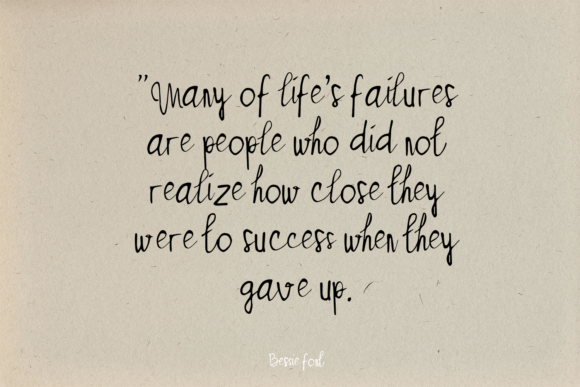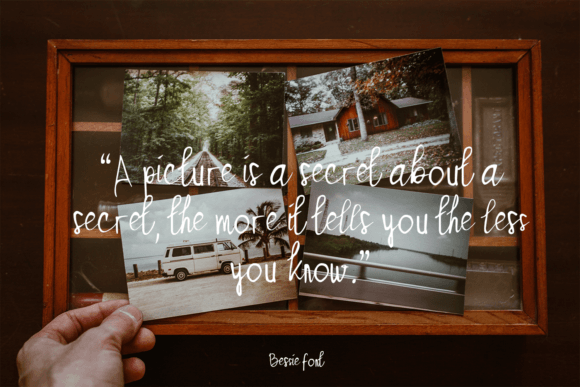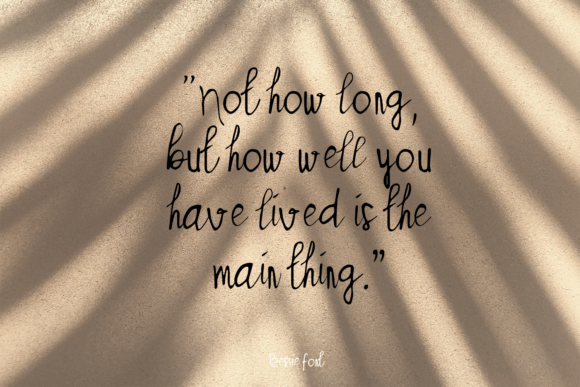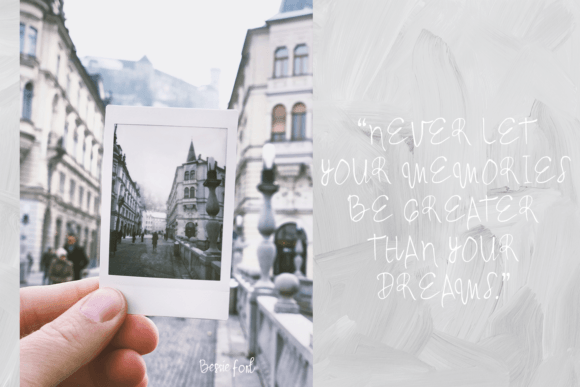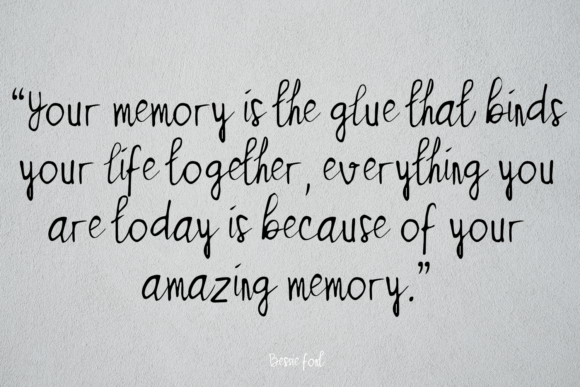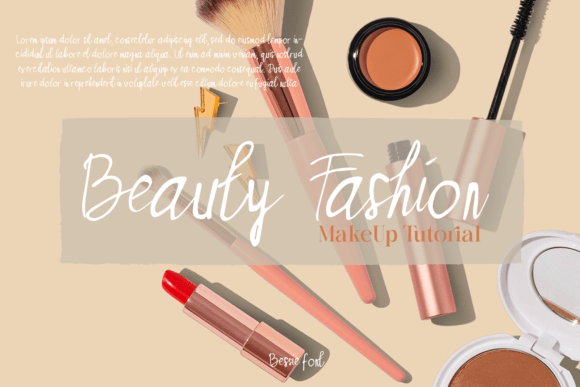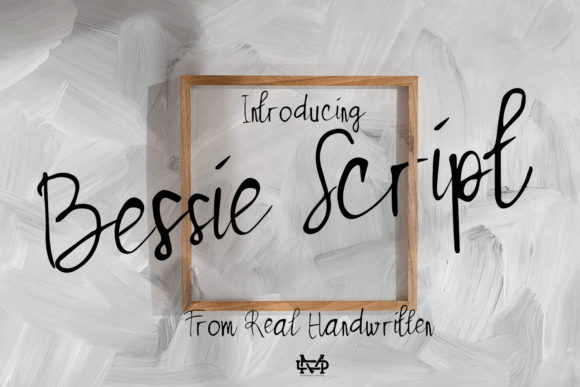
Bessie Script Font: Elevate Your Designs with a Quirkily Exquisite Touch
In the vast universe of typography, fonts play a pivotal role in bringing creativity and personality to designs. Among the myriad of fonts available, the Bessie Script Font stands out for its unique blend of quirkiness and elegance. This handwritten font is not just a typeface; it’s an expression of creativity, designed to add a distinctive touch to any project. Whether you’re a designer looking for a font that breaks the mold or a crafter seeking a unique style for your brand, Bessie Script is an ideal choice.
The Essence of Bessie Script Font
Bessie Script is a handwritten font that embodies both quirkiness and exquisite beauty, making it perfect for designs that require a personal touch. Its playful letterforms, characterized by unusual angles and curves, create a distinctive and memorable effect. This font is not just about conveying a message; it’s about making a statement. The unusual typographic elements ensure that your designs stand out in a crowded digital landscape.
Applications of Bessie Script Font
The versatility of Bessie Script Font makes it suitable for a wide range of applications. Here are a few areas where this font truly shines:
- Logos: A logo is often the first impression of a brand. With Bessie Script, you can create a logo that is not only memorable but also reflects the playful and creative side of your brand.
- Packaging: In the competitive world of product packaging, standing out is crucial. Bessie Script can add a touch of uniqueness to your packaging designs, making your products more noticeable to consumers.
- Advertising: Advertising is all about capturing attention. The quirkiness of Bessie Script Font can make your ad copies more engaging and appealing to your target audience.
Why Choose Bessie Script Font?
There are several reasons why designers and crafters are gravitating towards Bessie Script Font:
- Uniqueness: In a sea of generic fonts, Bessie Script offers a breath of fresh air with its unique and quirky style.
- Versatility: This font can be used across various platforms and design projects, from digital websites to print materials.
- Creativity: Bessie Script encourages creativity and can be a valuable asset for designers looking to push the boundaries of conventional design.
- Legibility: Despite its quirky nature, Bessie Script maintains a high level of legibility, making it suitable for both headings and body text.
Tips for Using Bessie Script Font Effectively
To get the most out of Bessie Script Font, consider the following tips:
- Pair it Wisely: Combine Bessie Script with simpler fonts for contrast. This will help maintain readability while adding a decorative touch to your designs.
- Use it Sparingly: While Bessie Script is captivating, it’s best used sparingly. Overuse can make your designs look cluttered and lose their impact.
- Experiment with Colors: The playful nature of Bessie Script pairs well with vibrant colors. Don’t be afraid to experiment with different color schemes to enhance the font’s quirky appeal.
Bessie Script Font is more than just a typeface; it’s a design statement. Its unique blend of quirkiness and elegance makes it an invaluable tool for designers and crafters looking to infuse their projects with personality and creativity. Whether you’re designing a logo, packaging, or an advertisement, Bessie Script offers a distinctive touch that can elevate your designs from ordinary to extraordinary. Embrace the charm of Bessie Script and let your designs speak with a voice that’s both playful and sophisticated.